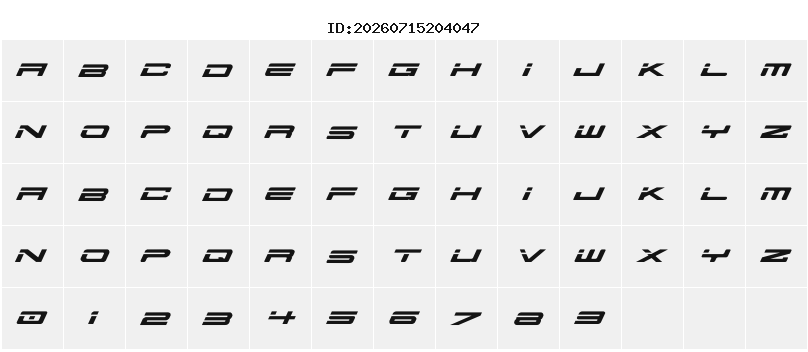
AusPROBE Preview
• Font Name: AusPROBE
• Full Font Name: AusPROBE
• Version: 1.03 July 2000
• Character Count: 64
About AusPROBE.ttf
AusPROBE.ttf is a modern, elegant sans-serif font designed for ultimate readability and visual harmony. Perfect for branding, headlines, web design, and print materials.